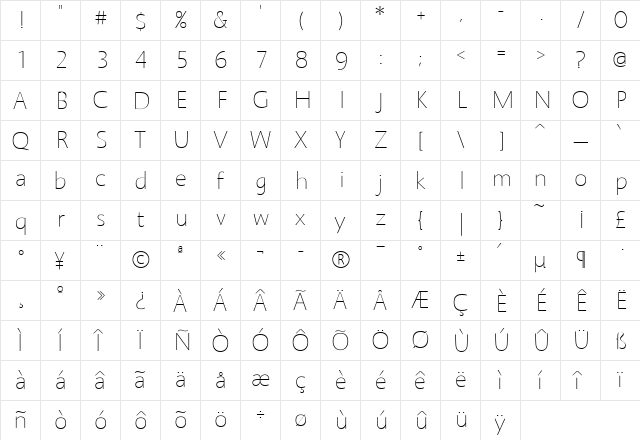
AIQuanta Thin
Design Context for AIQuanta Typeface
AIQuanta takes a measured approach to typography — its balanced proportions and neutral character make it a reliable workhorse for both digital and print work. Its slender proportions lend an understated elegance to any composition.